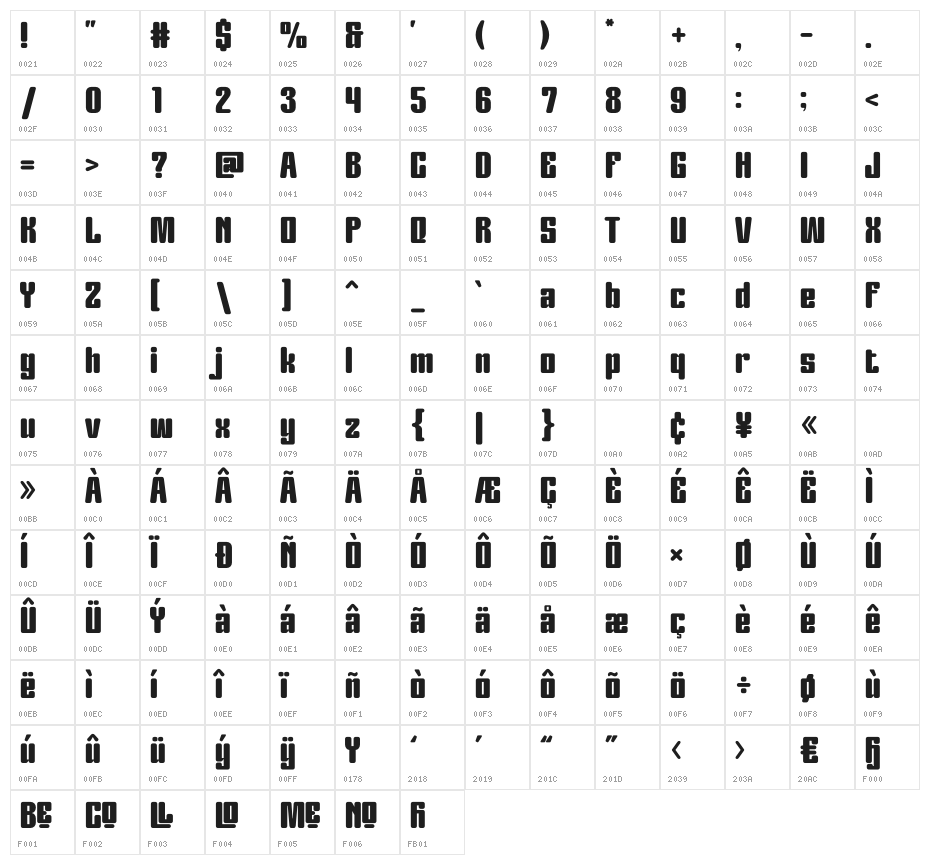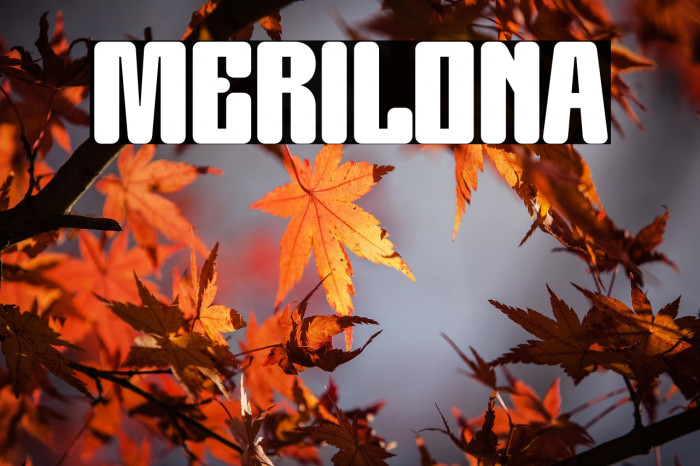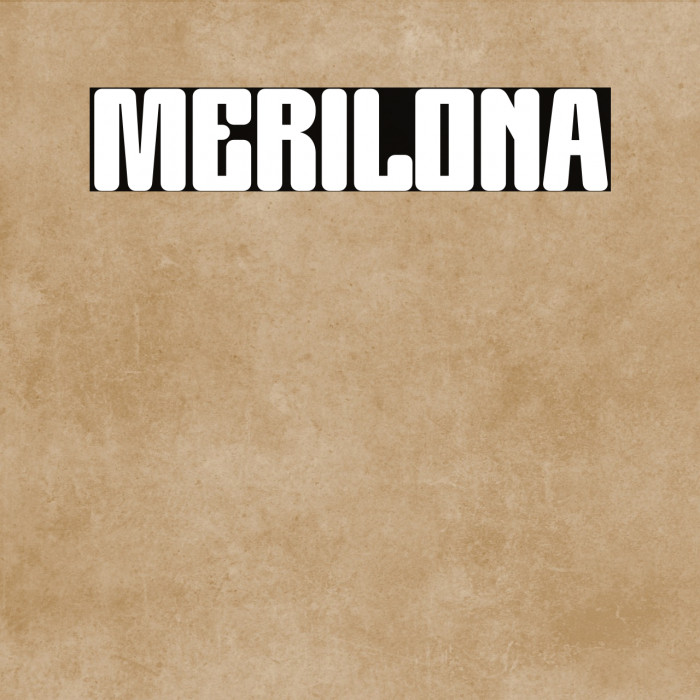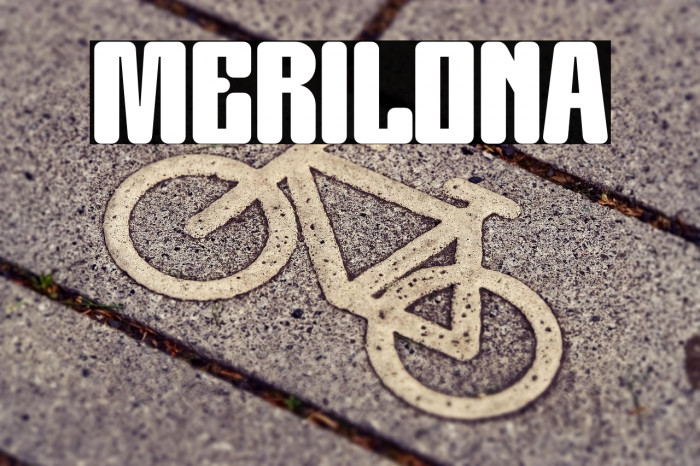
MERILONA Font
MERILONA Description
This font features bold, geometric letterforms with a strong presence. The characters are uniformly thick, giving a robust and impactful appearance. The uppercase and lowercase letters maintain a consistent width, contributing to a cohesive look. The numbers and special characters follow the same design principles, ensuring uniformity across all elements. The font's style is reminiscent of retro and vintage aesthetics, with a modern twist. Its boldness makes it suitable for attention-grabbing headlines and titles. The character spacing is tight, enhancing its compact and solid feel.
| Overall Style | Retro, Modern |
| Proposed Projects | This font is perfect for branding projects, poster designs, and any creative work that requires a strong visual impact. Its boldness makes it suitable for logos, advertising, and packaging design. |